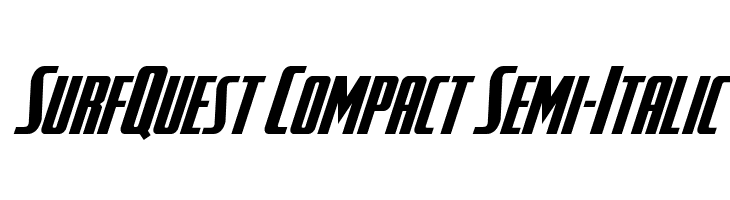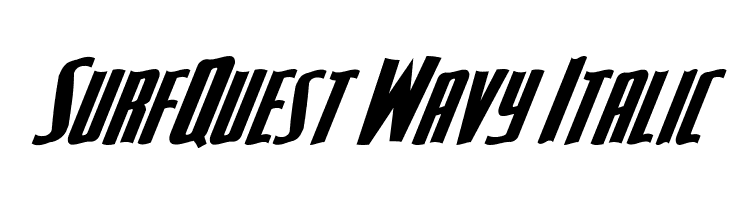
A bold, semi-italic, and compact font with a modern, dynamic style.
A bold, condensed font with sharp angles and a modern aesthetic.
A bold, condensed, and italicized font with a dynamic and modern style.
A bold, condensed, semi-italic font with a modern and dynamic style.
A bold, expanded font with geometric shapes and high contrast.
A bold, expanded, and italic font with a modern and dynamic style.
A bold, expanded, semi-italic font with a modern and dynamic style.
A bold, modern font with a unique gradient effect and geometric structure.
A dynamic, italic font with a gradient line effect, exuding energy and modernity.
A bold, dynamic font with a halftone effect and retro-futuristic style.